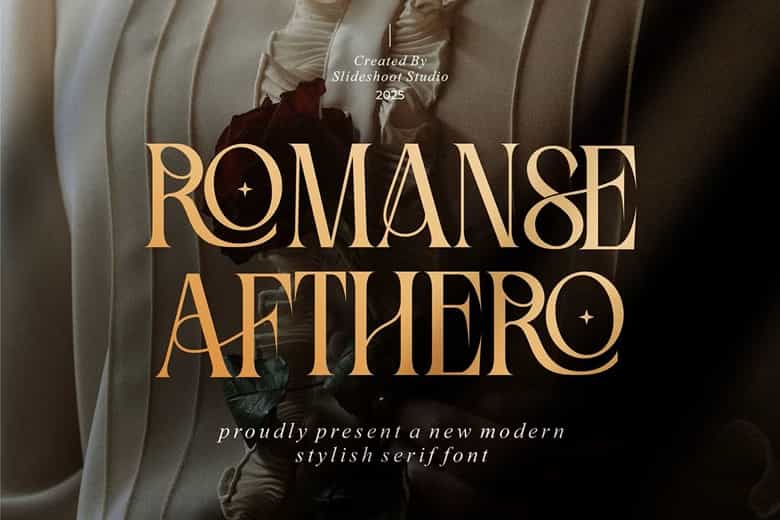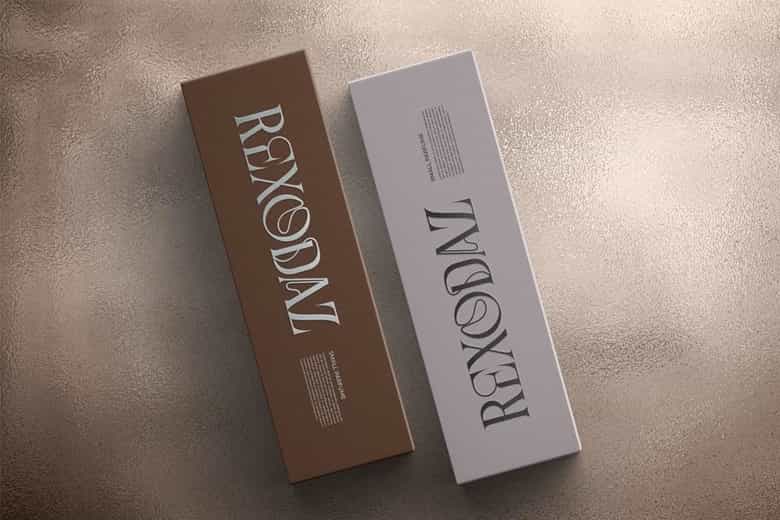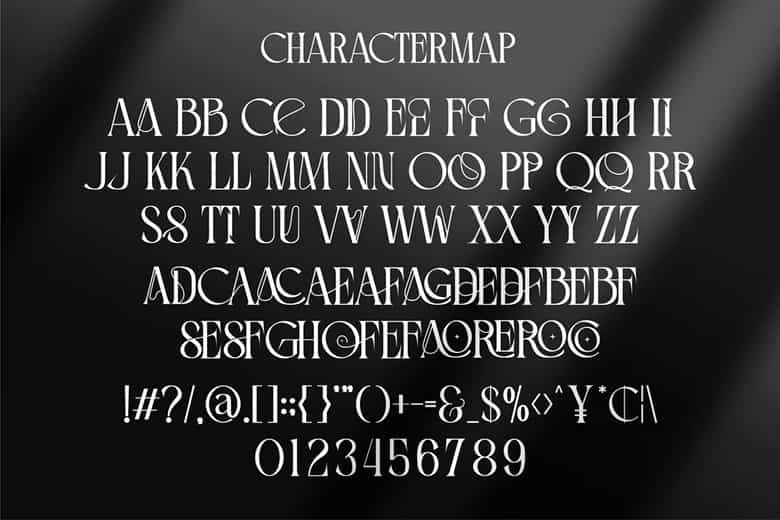
Romanse Afthero is a new modern stylish serif typeface. It has a unique character with wood theme. It is perfect to be combined with invitation card designs, company logos, movie titles, movie names, business cards, book titles, brand names and various other designs.